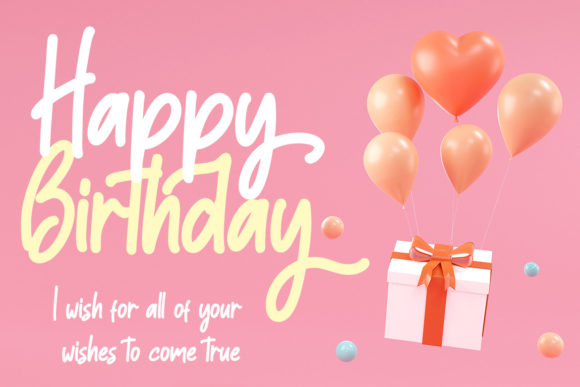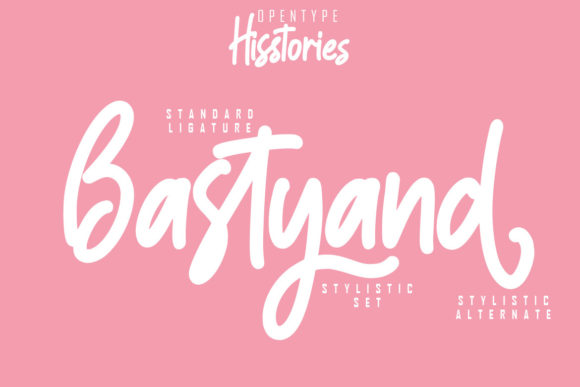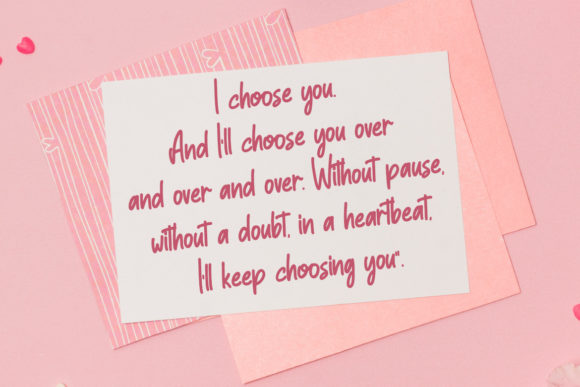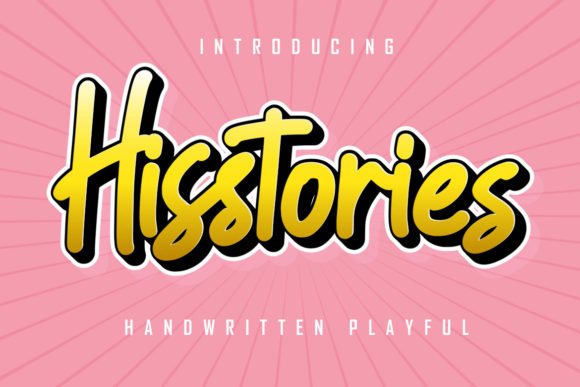
Introduction to Hisstories Font
Hisstories is a unique and elegant handwritten font.
It looks beautiful on a variety of designs requiring a personalized style, such as wedding invitations, thank you cards, weddings, greeting cards, logos and so on This font is PUA encoded which means you can access all of the glyphs and swashes with ease.